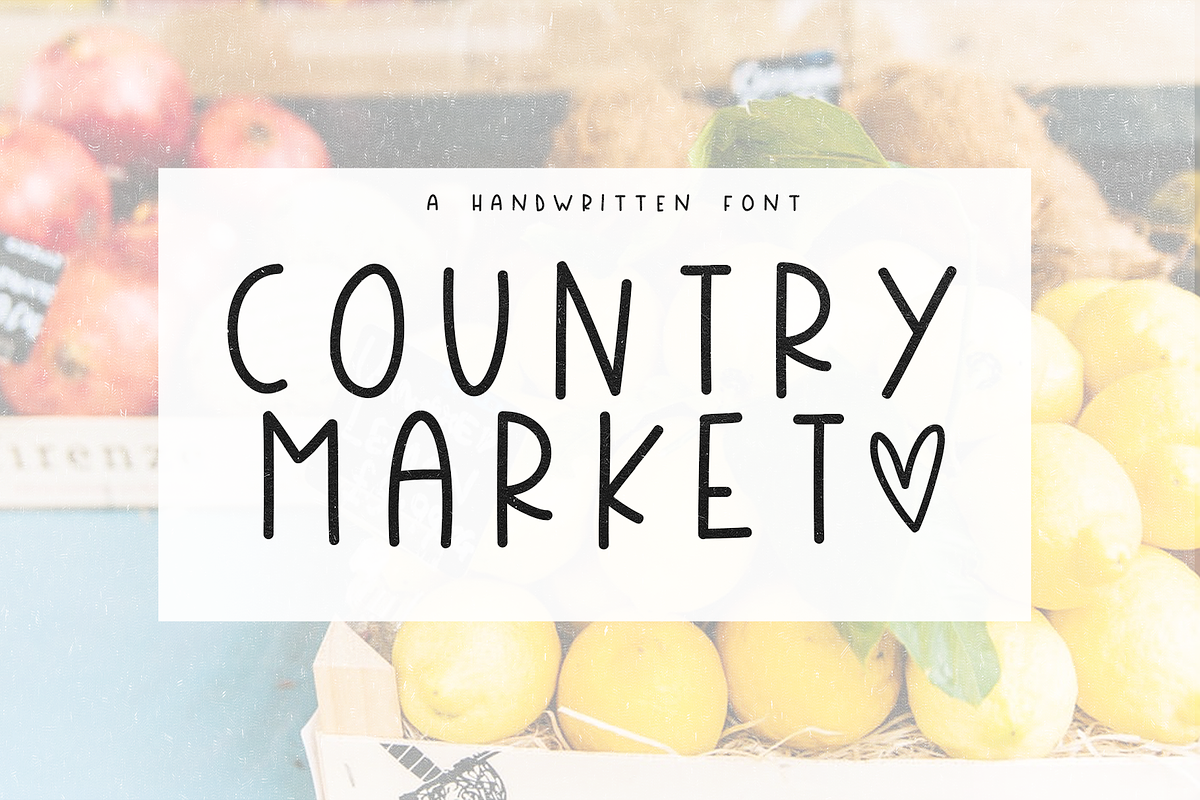
Country Market - Handwritten Font Free Download
The Country Market - Handwritten Font Free Download is a charming and rustic script typeface that embodies the warmth and personal touch of handwritten letters. Perfect for branding, logos, social media posts, packaging, and rustic designs, this font brings a cozy, handmade feel to your projects.
With its flowing, slightly imperfect strokes, Country Market adds a unique, approachable touch to any design. It includes uppercase and lowercase letters, numbers, punctuation, and multilingual support, making it versatile for a wide range of creative applications.